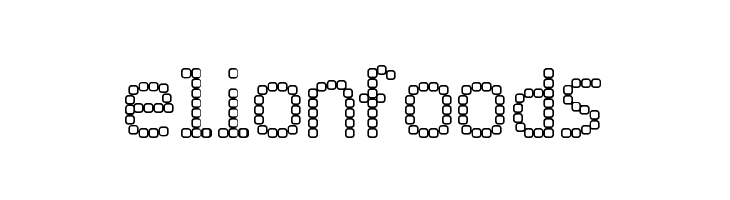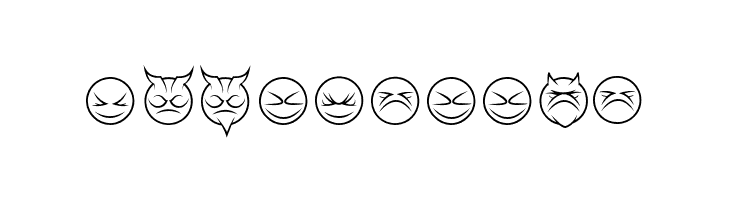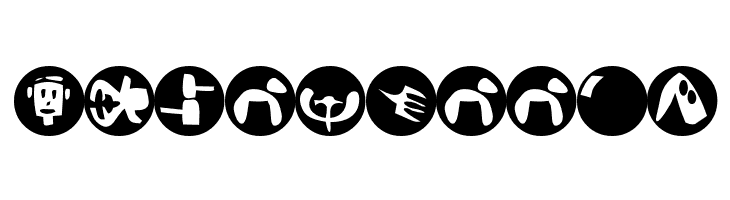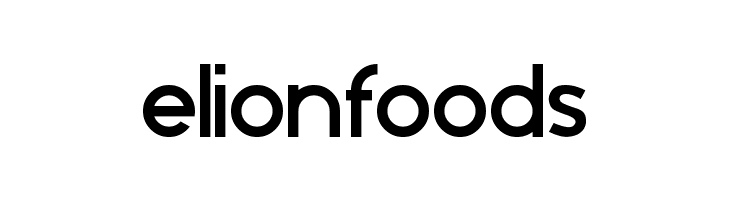
A bold, geometric font with inline detailing for a modern, striking look.
A bold, decorative font with horizontal stripes and a modern flair.
A pixelated, square-based font with a modern, digital aesthetic.
A playful set of devilish faces with bold lines and varied expressions.
A set of bold, abstract symbols within circular shapes, perfect for creative designs.
A modern, geometric sans-serif font with smooth, rounded edges.